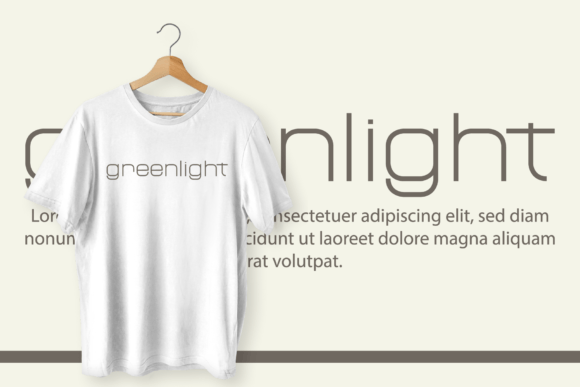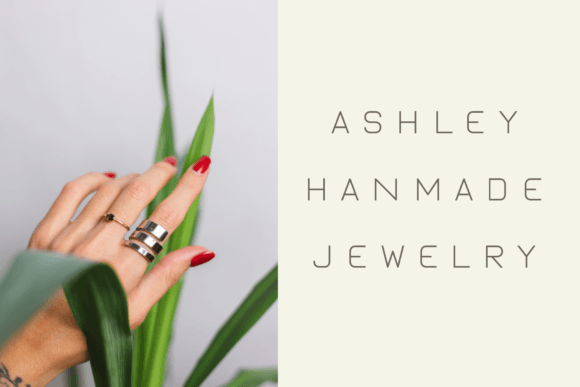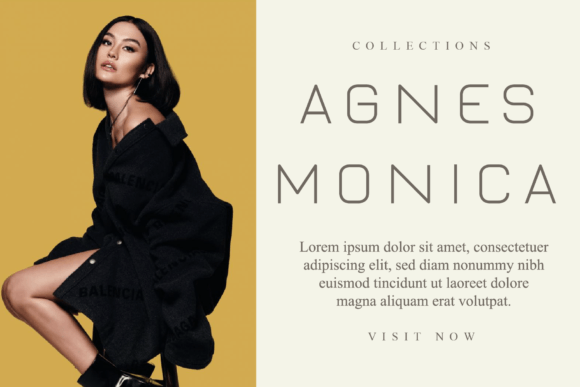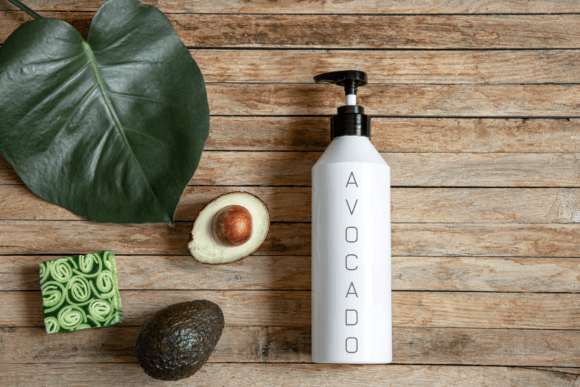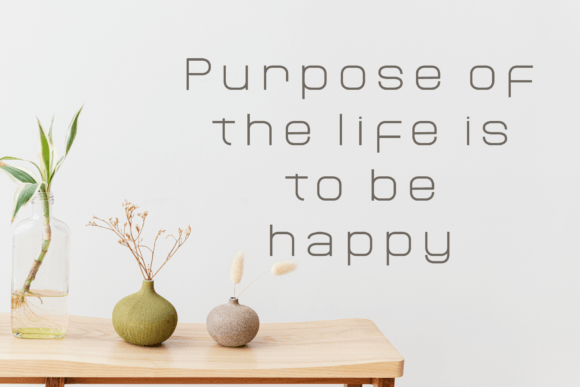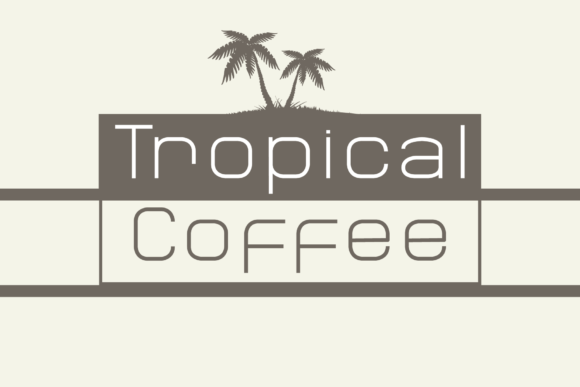
Introducing Digital Father Font: The Ultimate Choice for a Clean Retro Look
In the world of typography, fonts play a crucial role in defining the aesthetic and tone of a design. For designers and crafters looking for a simple yet stylish sans-serif font, Digital Father is an excellent choice. This font is specifically designed to provide a clean retro look, making it perfect for various applications, including tattoos, logos, web design, and branding.
What is Digital Father Font?
Digital Father is a sans-serif font that boasts a clean and minimalist design. Its vintage balanced proportions make it an ideal choice for designers seeking a retro look without compromising on modernity. The font’s simplicity and elegance ensure that it can be used in a wide range of design projects, from tattoos and logos to web design and branding.
Key Features of Digital Father Font
- Clean Retro Look: Digital Father font is designed to provide a clean retro aesthetic, making it perfect for designers who want to add a vintage touch to their designs.
- Simple Sans-Serif Design: The font features a simple sans-serif design, which ensures that it remains legible and stylish.
- Vintage Balanced Proportions: The font’s vintage balanced proportions make it an excellent choice for creating a minimalist aesthetic.
- Versatile: Digital Father font can be used in various design projects, including tattoos, logos, web design, and branding.
Use Cases for Digital Father Font
Digital Father font is a versatile font that can be used in various design projects. Here are some of the most popular use cases:
- Tattoos: The font’s clean and simple design makes it an excellent choice for tattoos. Its retro look adds a vintage touch to tattoo designs.
- Logos: Digital Father font is perfect for creating logos that require a clean and minimalist design. Its versatility ensures that it can be used in various industries.
- Web Design: The font’s legibility and simplicity make it an excellent choice for web design. It can be used for headings, body text, and other design elements.
- Branding: Digital Father font can be used in branding projects to create a consistent visual identity. Its retro look adds a touch of elegance to brand designs.
Why Choose Digital Father Font?
There are several reasons why designers and crafters should choose Digital Father font for their design projects:
- Unique Design: The font’s clean retro look and vintage balanced proportions make it a unique choice for designers.
- Versatility: Digital Father font can be used in various design projects, making it a versatile addition to any design library.
- Legibility: The font’s simple sans-serif design ensures that it remains legible, even at small font sizes.
Digital Father font is an excellent choice for designers and crafters looking for a clean retro look. Its simple sans-serif design, vintage balanced proportions, and versatility make it perfect for various design projects, including tattoos, logos, web design, and branding. With its unique design and ease of use, Digital Father font is a valuable addition to any design library.
Overall, Digital Father font is a stylish and versatile font that can add a touch of elegance to your designs. Its clean retro look and simplicity make it an excellent choice for designers and crafters looking for a unique and stylish font.